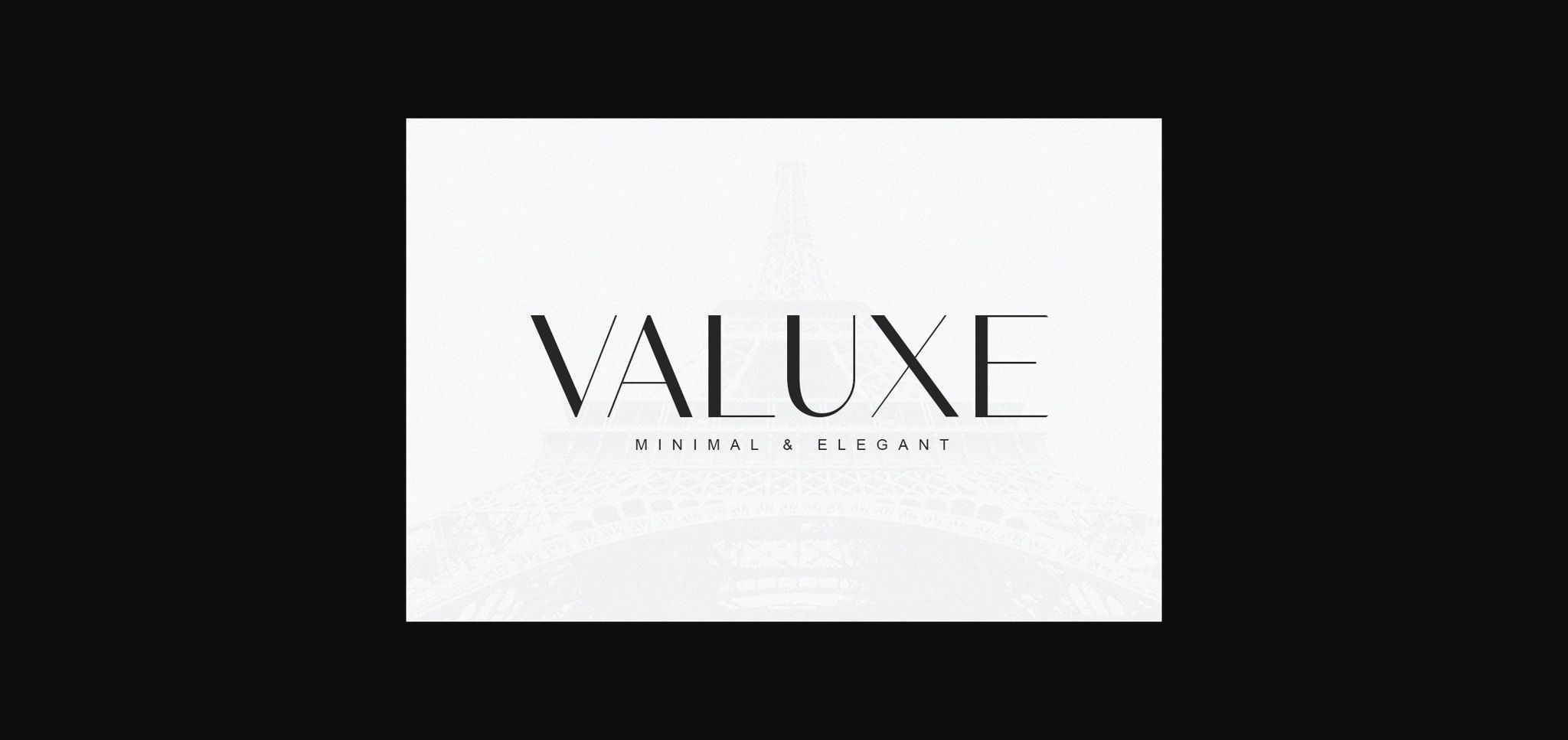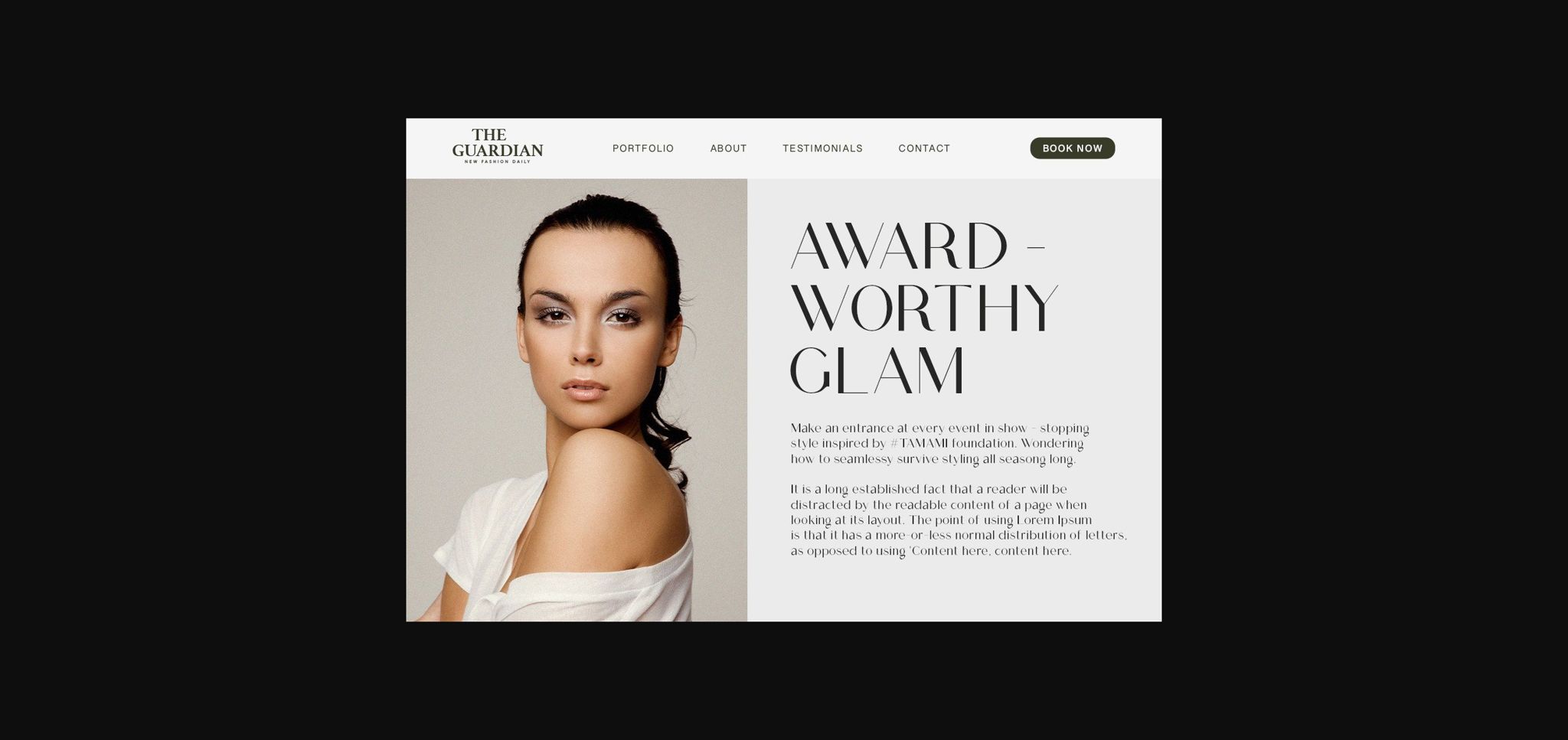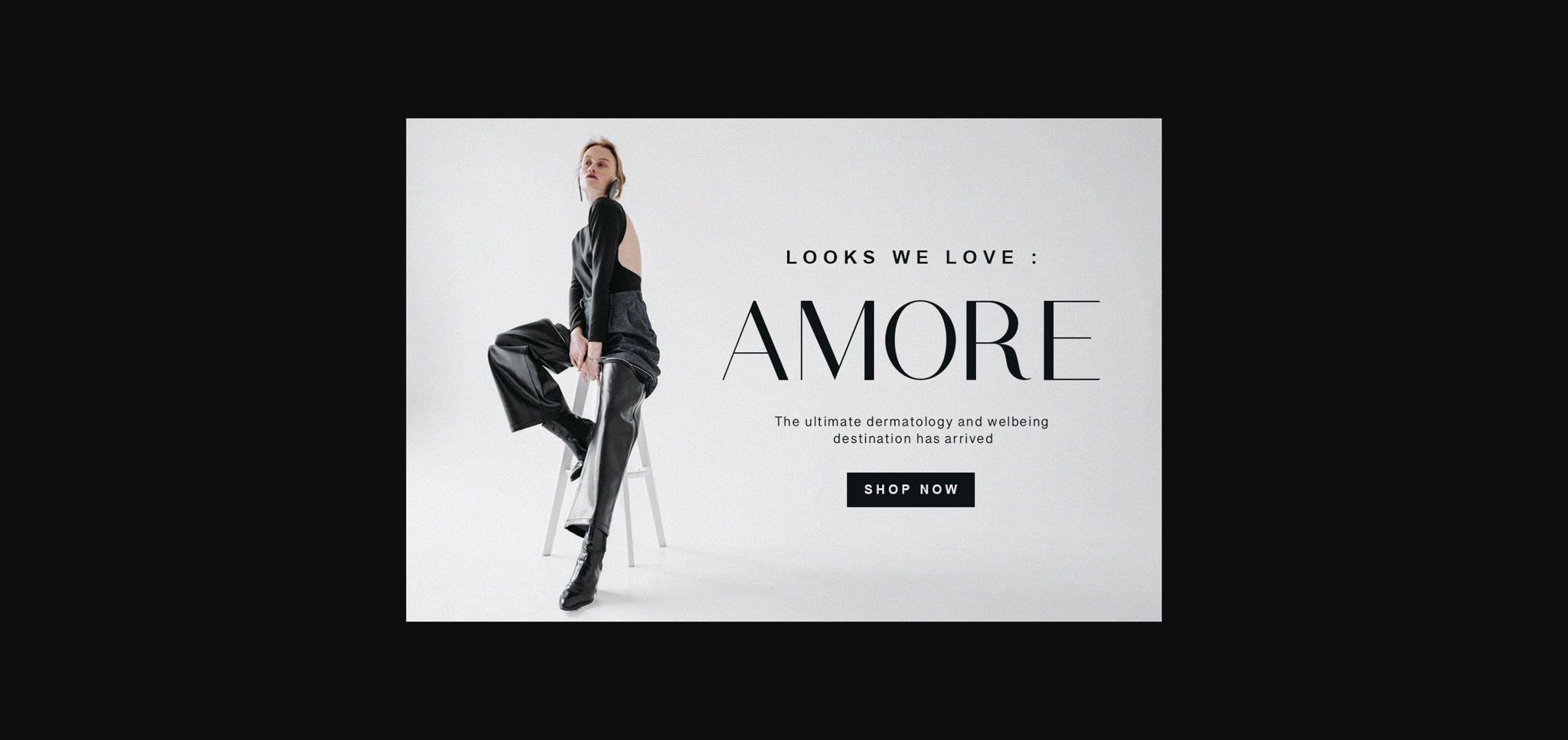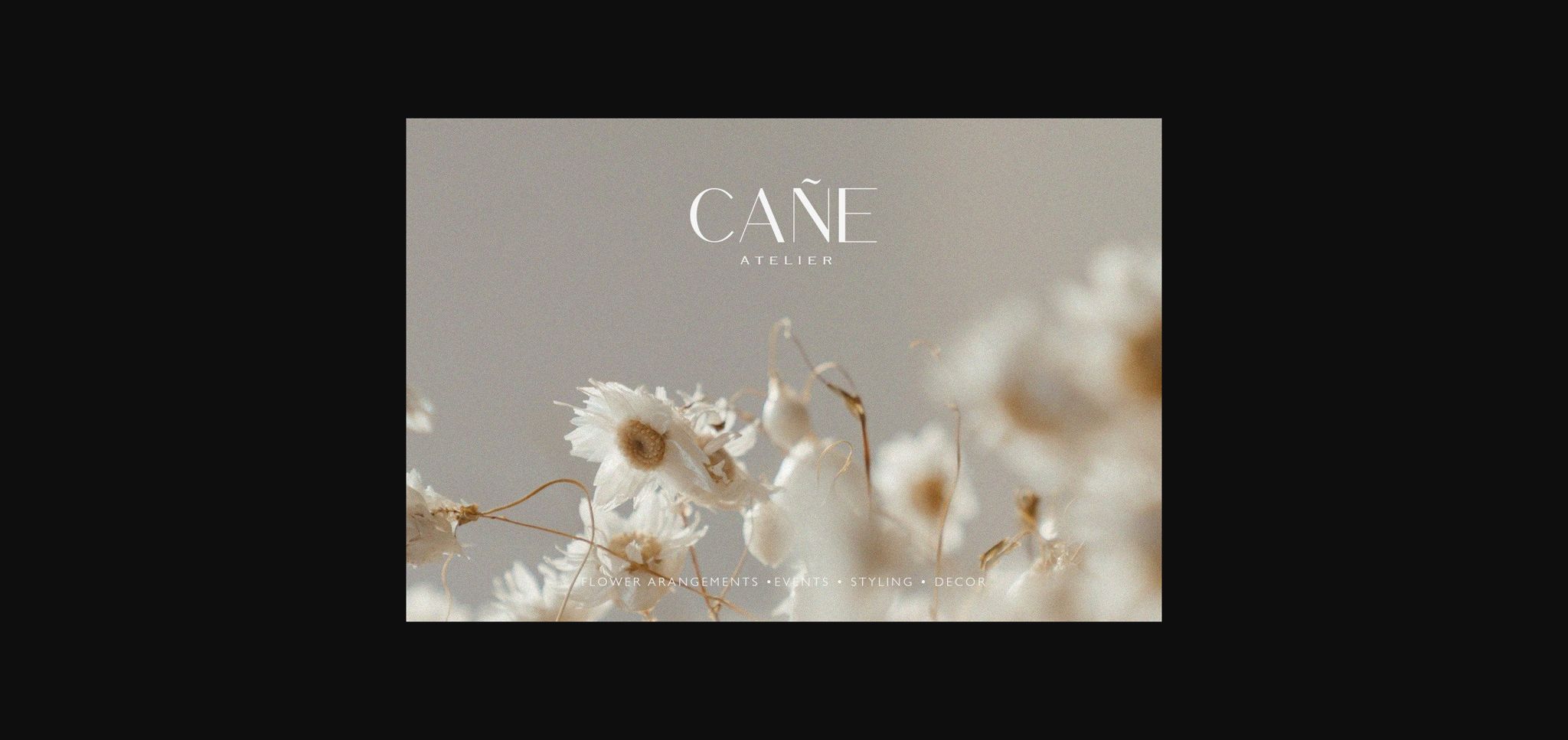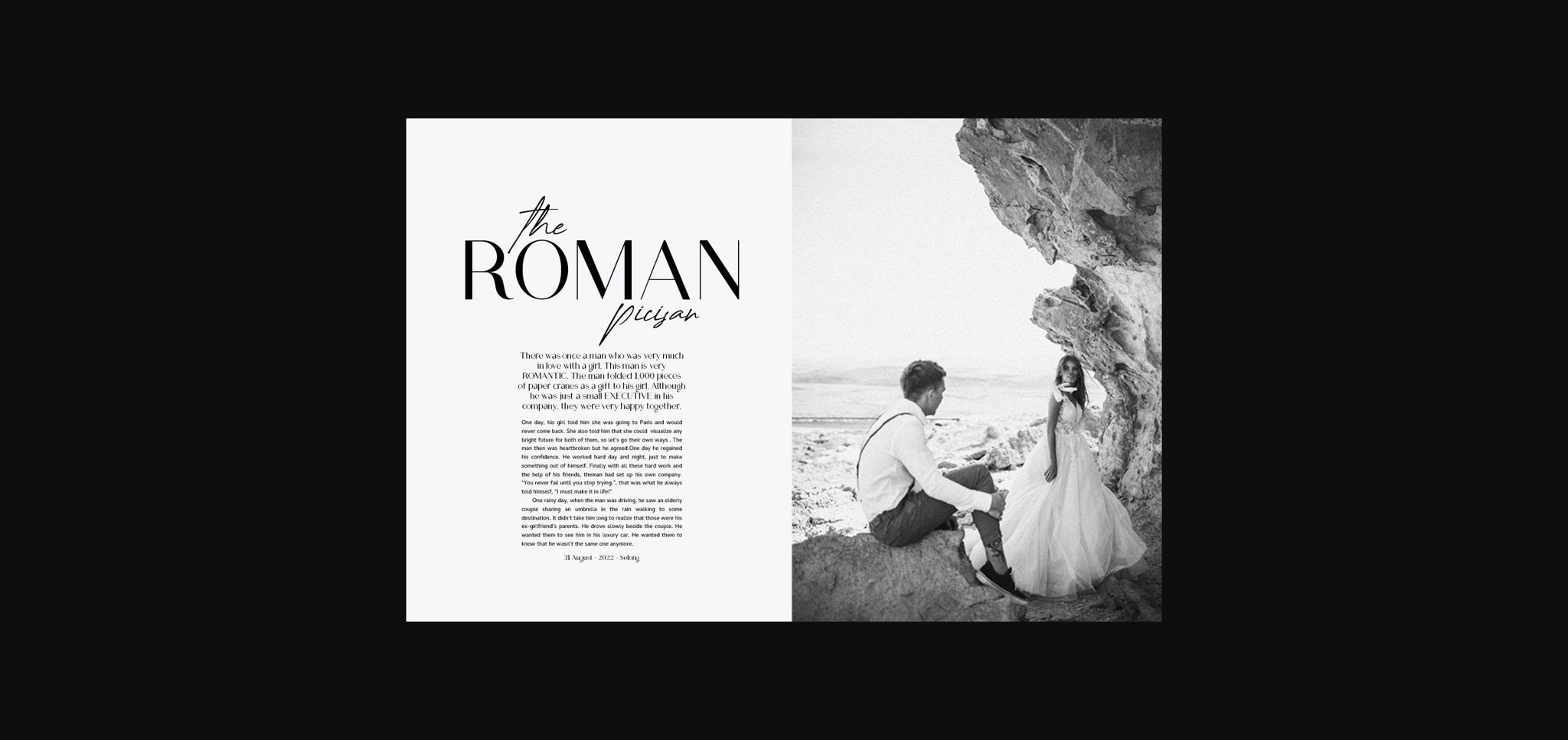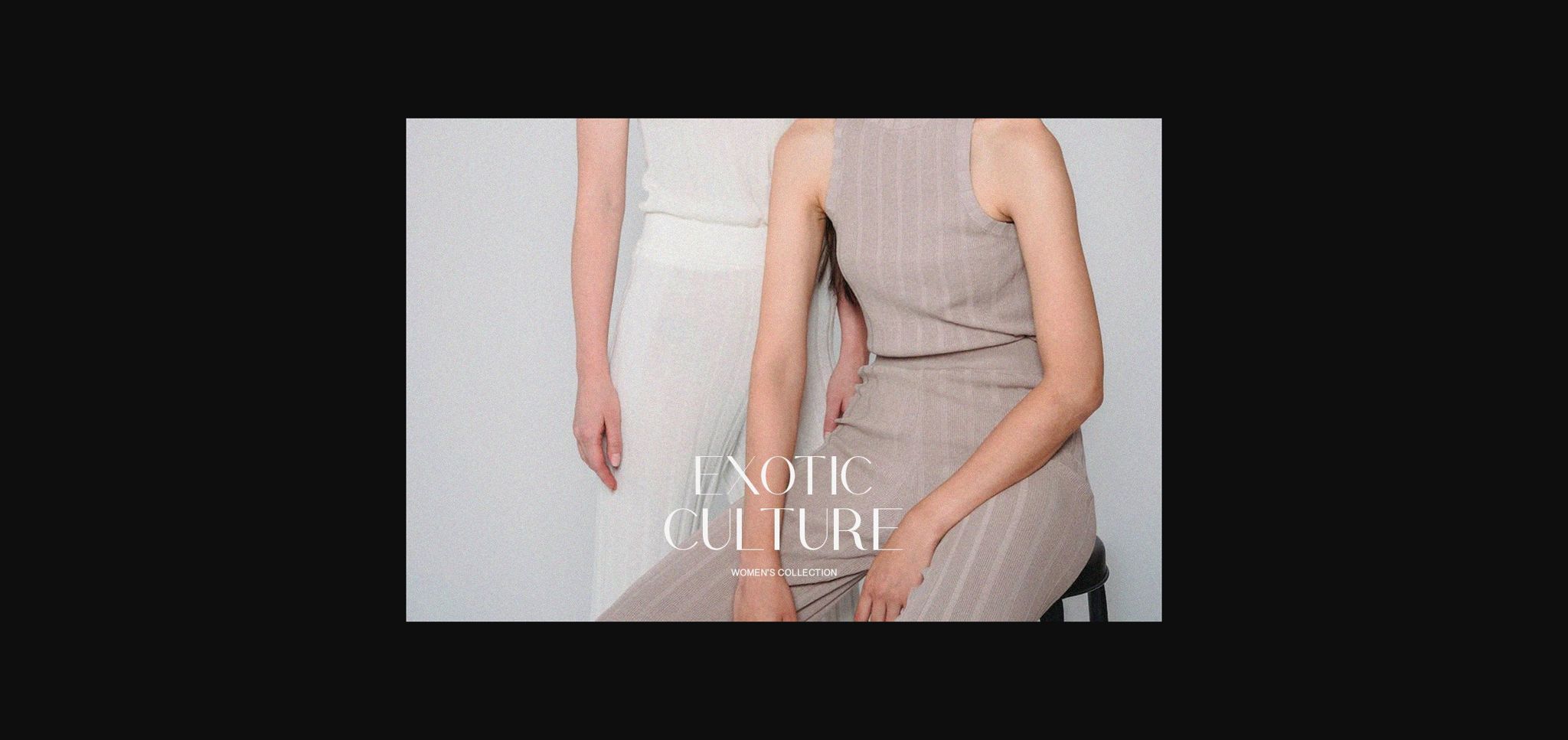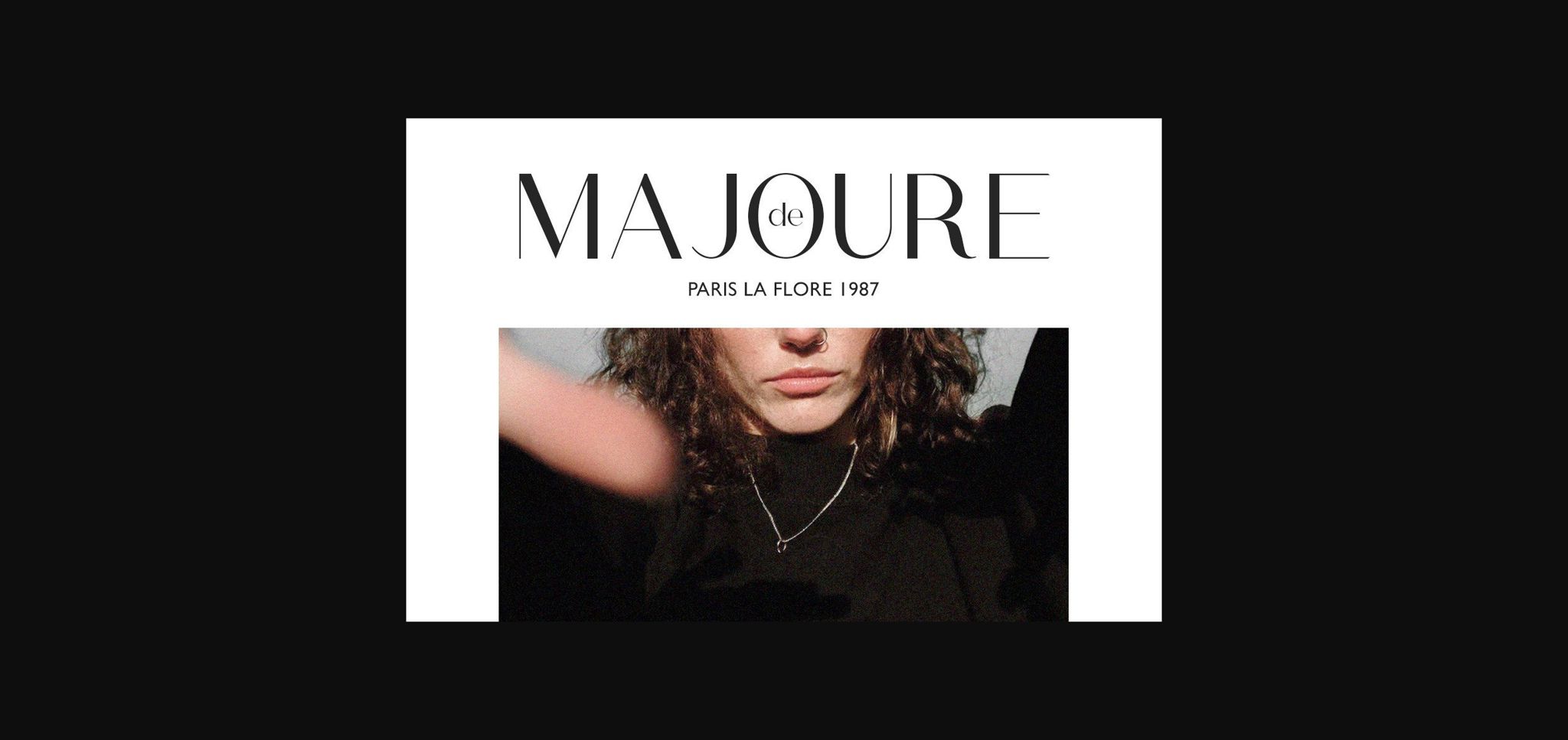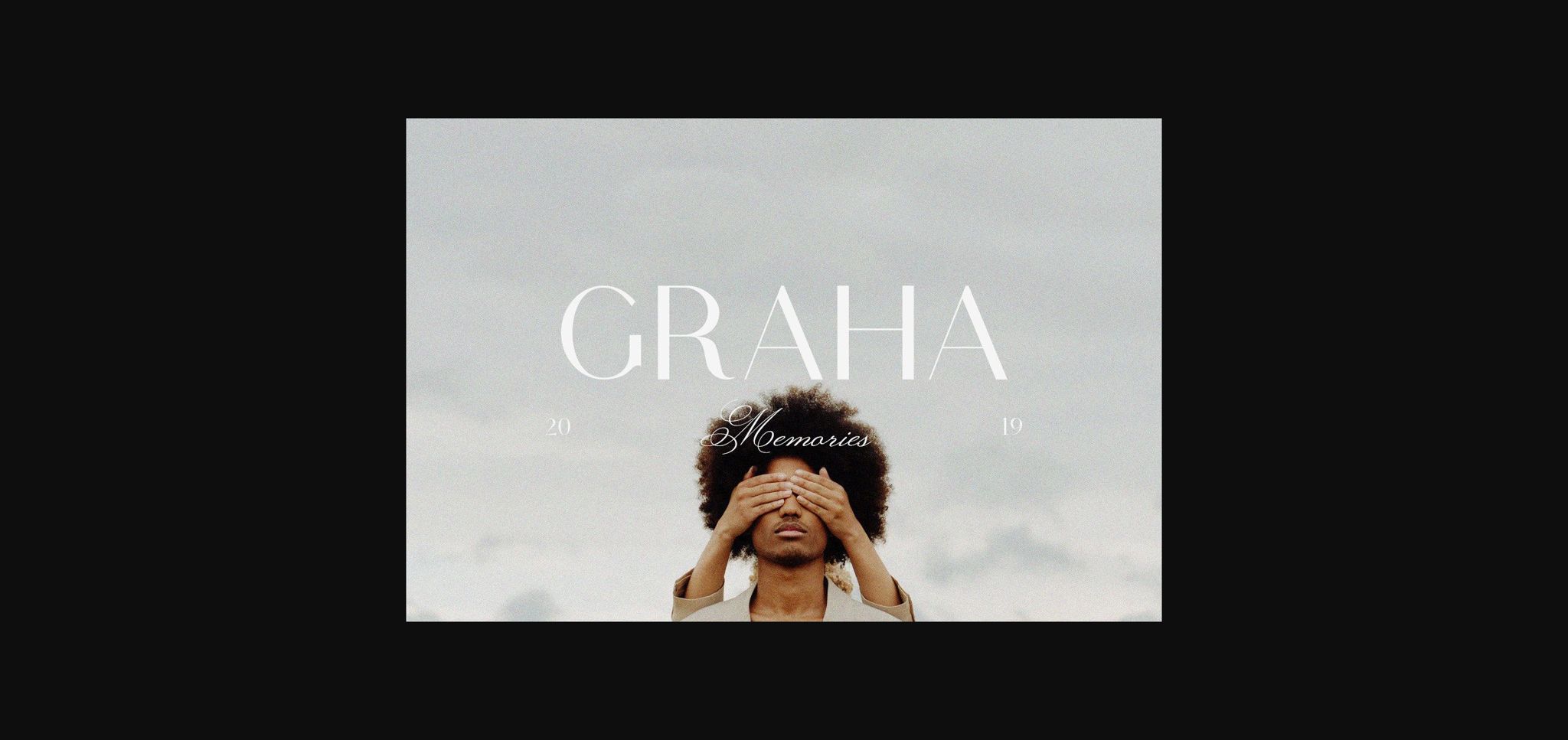
Valuxe Font
About Valuxe Font
Valuxe — modern and minimalist sans serif. This font pairs well with a basic font like Arial and any script with an elegant style.